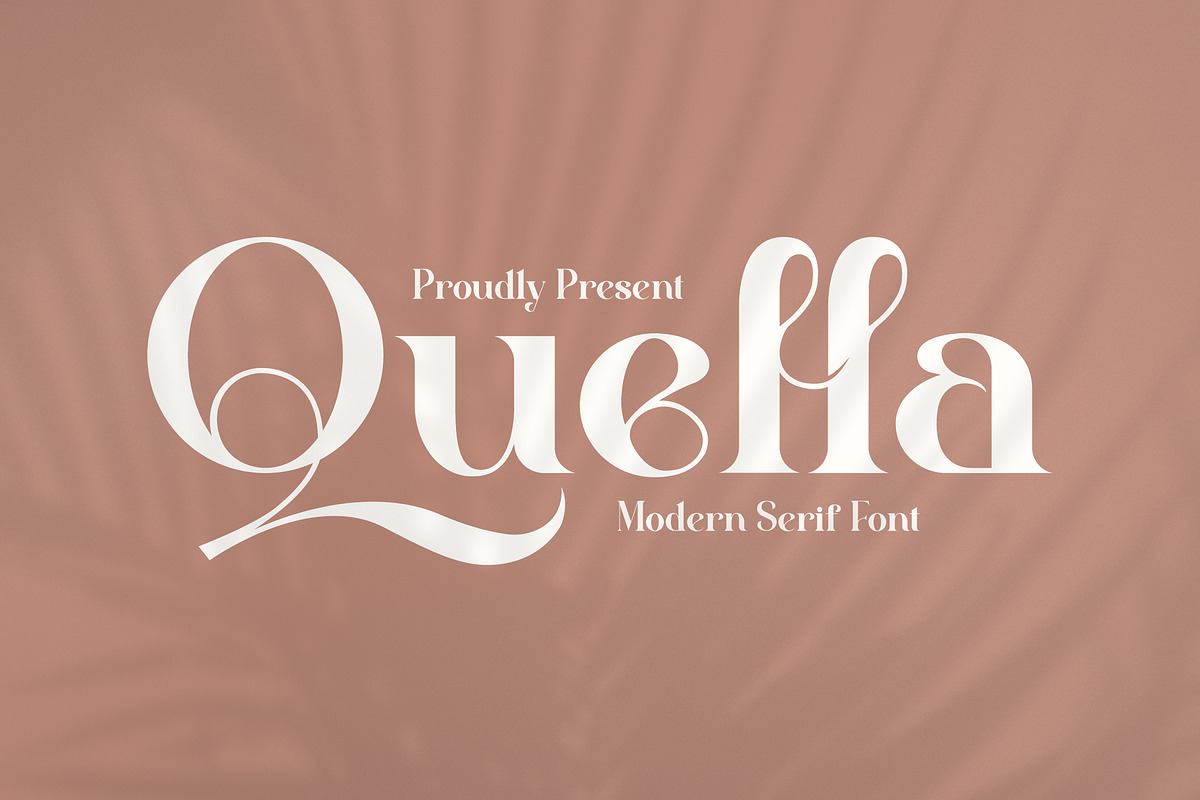
Quella Modern Serif Font Free Download
Quella Modern Serif Font Free Download is a stylish ligature typeface inspired by minimalist logos, making it ideal for designing templates, brochures, videos, advertising, branding, logos, and more.
Quella includes standard glyphs, ligatures, and international accents, offering versatility for various design projects.